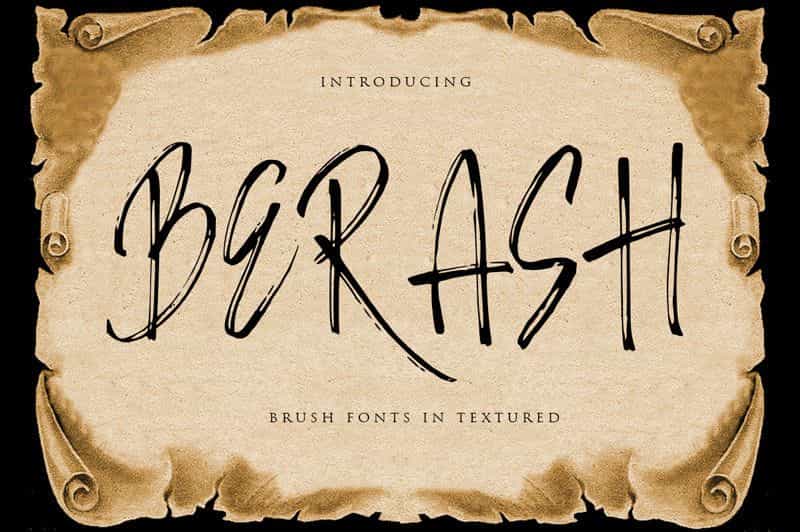
Discover Berash Brush Font, part of the Brush collection—a versatile and unique font perfect for adding a personal touch to your projects. Download it for free and enjoy crafting designs with style, from invitations to social media posts. This font is available exclusively for personal use, giving you the freedom to create without limits. Unlock your creativity with Berash Brush Font today!
Berash is a fresh brush font for the elite designers that has been created by the designers at Haksen Studio and is open for free download for personal usage only. The free version of the app contains all the letters of the English alphabet both capital and small and a few other symbols, as well.